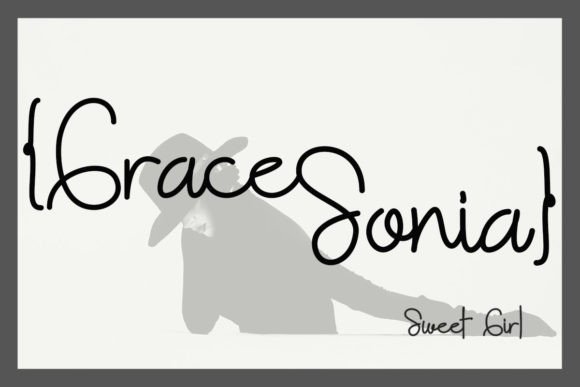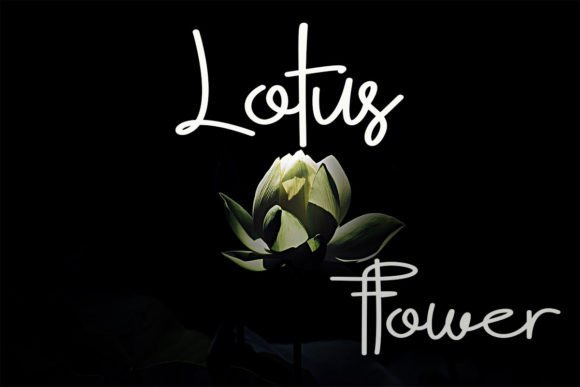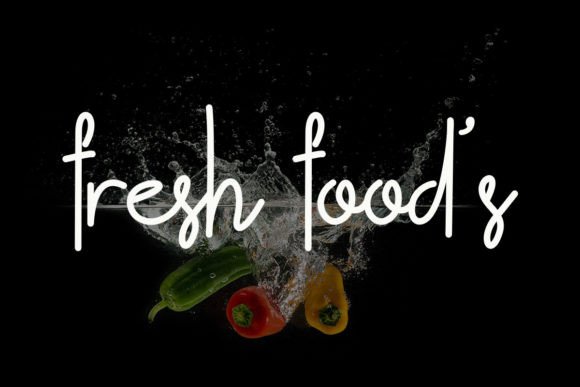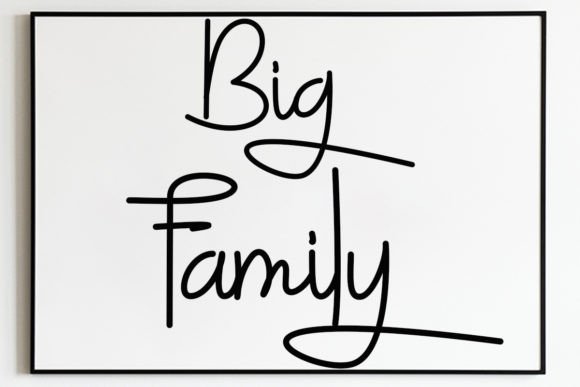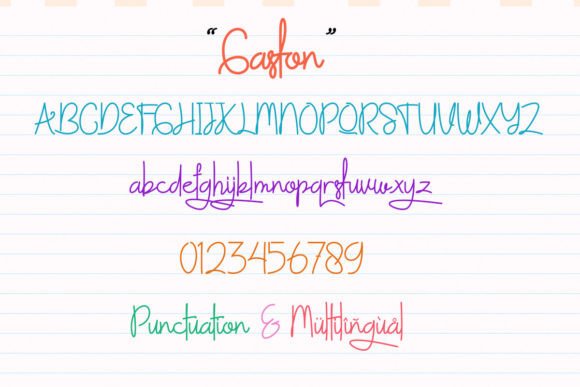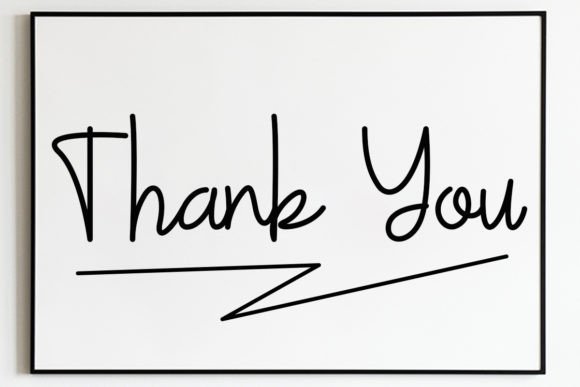
I still remember the frustration of working on a project, hours spent searching for the perfect font, only to come up empty-handed. My client wanted something elegant, stylish, and eye-catching – a font that would make their brand stand out. And then, I stumbled upon Gaston, a beautiful handwritten script font that exceeded my expectations. In this article, I’ll share my experience with Gaston, its features, and how to make the most of it in your designs.
An Honest Review of Gaston Font
What I Love About Gaston ✨
- ✅ Elegant and stylish handwritten script font
- ✅ Highly versatile and adaptable to various projects
- ✅ Beautifully crafted letters with a personal touch
- ✅ Supports OpenType features, glyphs, and stylistic alternates
- ⚠️ Limited availability of condensed or italic versions
- ⚠️ May not be suitable for very small font sizes or body text
Alternatives to Gaston: Similar Fonts to Consider
The Story Behind Gaston: Designer Inspiration
Gaston was crafted with love and attention to detail by a talented type designer. The font’s creator aimed to produce a stylish, elegant script font that would inspire creativity and add a personal touch to designs. Although the designer’s story is fictional, it’s clear that Gaston was designed with passion and dedication.
| Font Name | Gaston Font |
| Author | ABDStudio |
| What type of projects is Gaston suitable for? | Gaston is highly versatile and can be used in a wide range of projects, from branding and advertising to packaging and digital media. |
| Does Gaston support OpenType features? | Yes, Gaston supports OpenType features, including ligatures, stylistic alternates, and glyphs. |
In conclusion, Gaston is a stunning handwritten script font that can elevate your designs and add a touch of elegance. With its versatility, beautiful craftsmanship, and OpenType features, Gaston is an excellent choice for designers, crafters, and creative hobbyists. Experiment with Gaston in your projects and discover its full potential!